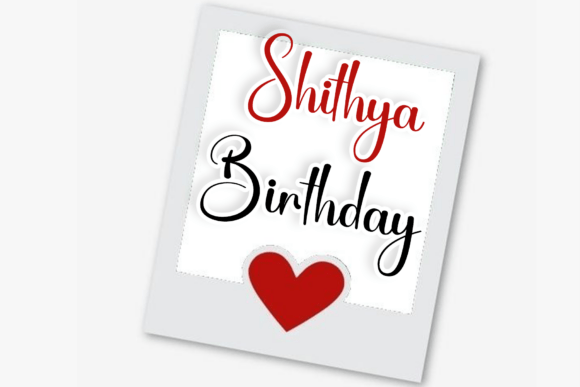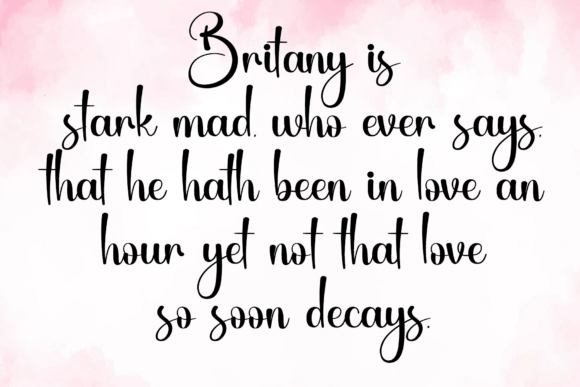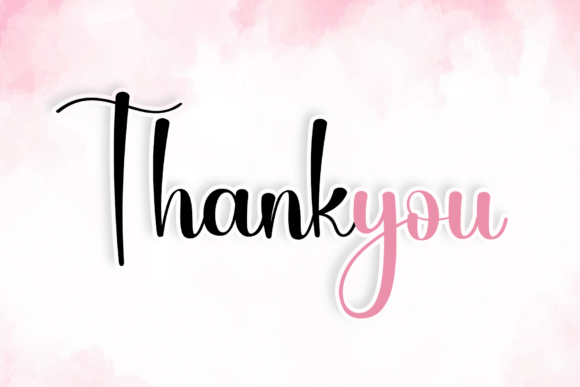
Betterbaby Font: Elevate Your Brand with Sophisticated Script Style
In the world of typography, few fonts manage to strike a balance between elegance and warmth. Betterbaby font is one such exceptional typeface that combines the fluidity of calligraphy with an organic, artisanal feel. This sophisticated and rhythmic script font has become a premier choice for designers and crafters looking to add a touch of luxury and personality to their branding, packaging, and editorial projects.
The Unique Charm of Betterbaby Font
Betterbaby’s defining characteristic is its use of sweeping, looping ascenders that give it a distinctive, customized look. These elegant strokes create a sense of movement and fluidity, evoking the feeling of handcrafted artistry. The font’s calligraphic style is balanced by its warm, organic aesthetic, making it perfect for brands that want to convey a sense of sophistication and approachability.
Ideal Applications for Betterbaby Font
Betterbaby font is versatile and can be used in various design applications. Some of the ideal uses for this font include:
- Artisanal Food Branding: Betterbaby’s elegant and organic feel makes it perfect for food brands that want to convey a sense of handcrafted quality and sophistication.
- Boutique Product Packaging: The font’s luxurious and artisanal feel makes it an excellent choice for boutique product packaging, adding a touch of high-end elegance to product labels and packaging.
- Upscale Lifestyle Marketing: Betterbaby font is ideal for lifestyle brands that want to convey a sense of sophistication and refinement, making it perfect for marketing materials, such as brochures, flyers, and advertisements.
- Creative Editorial Titles: The font’s unique and artistic style makes it an excellent choice for editorial titles, such as magazine covers, book titles, and article headings.
Why Choose Betterbaby Font?
Betterbaby font offers several benefits that make it an attractive choice for designers and crafters:
- Unique and Memorable: The font’s distinctive looping ascenders and elegant strokes make it stand out from more traditional typefaces, ensuring that your brand or project will be remembered.
- Versatile: Betterbaby font can be used in various design applications, from branding and packaging to editorial and marketing materials.
- High-Quality: The font is designed with high-quality craftsmanship in mind, ensuring that it will look great in both digital and print formats.
Tips for Using Betterbaby Font Effectively
To get the most out of Betterbaby font, consider the following tips:
- Use it as a Headline Font: Betterbaby font is perfect for headlines and titles, where its elegant and artistic style can shine.
- Pair it with a Simple Font: For body text, pair Betterbaby font with a simple, clean font to create visual contrast and ensure readability.
- Experiment with Colors: Betterbaby font looks great in a variety of colors, so don’t be afraid to experiment and find the perfect hue to match your brand or project’s aesthetic.
Betterbaby font is a sophisticated and rhythmic script font that offers a unique blend of elegance and warmth. Its distinctive looping ascenders and organic aesthetic make it perfect for artisanal food branding, boutique product packaging, upscale lifestyle marketing, and creative editorial titles. With its versatility, high-quality craftsmanship, and memorable style, Betterbaby font is an excellent choice for designers and crafters looking to elevate their brand or project with a touch of luxury and personality.